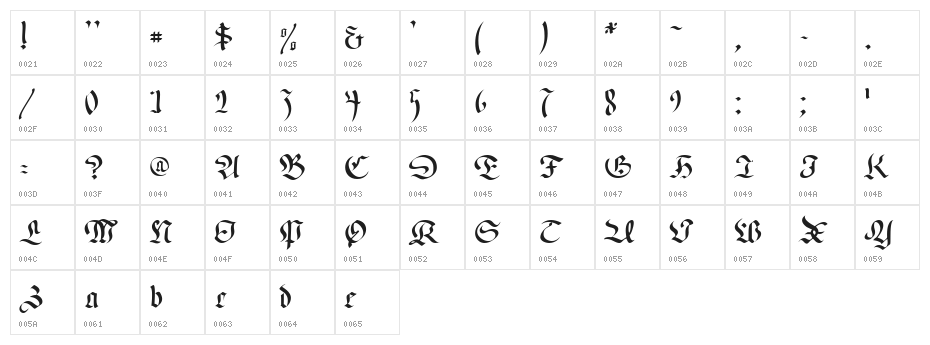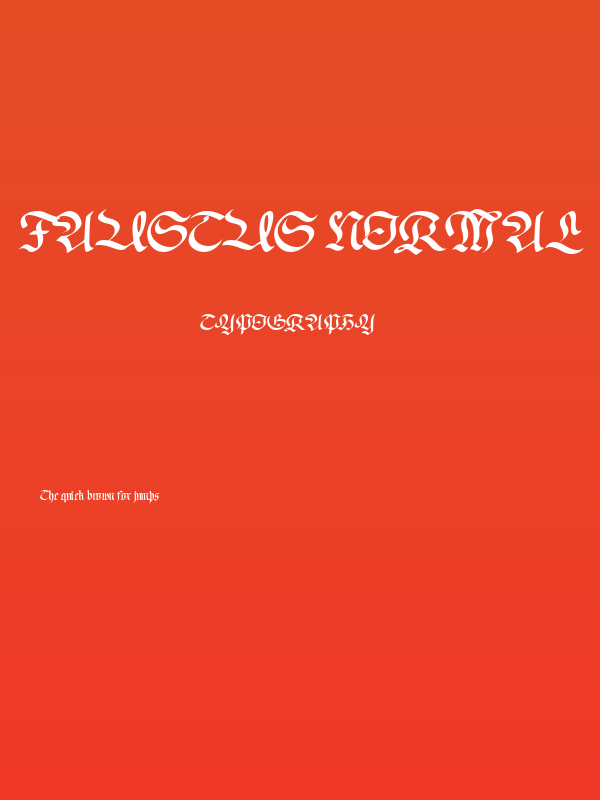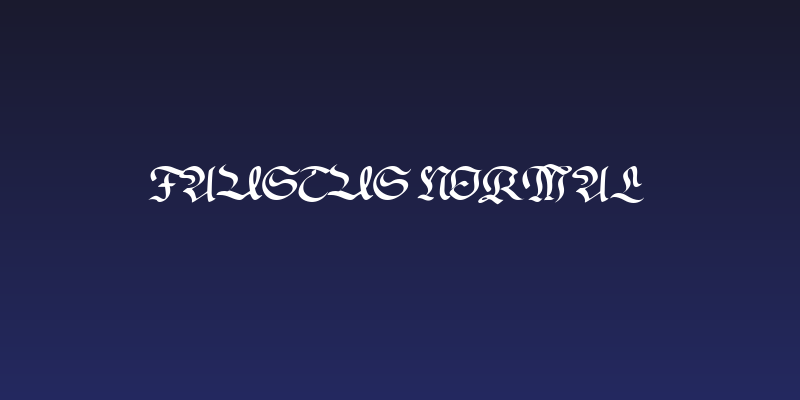
Faustus Normal Font
Faustus Normal Description
This font embodies a classic blackletter style, characterized by its intricate and ornate design. The letters are bold and dramatic, with sharp, angular lines and elaborate curves that give it a medieval, gothic appearance. The uppercase letters are particularly striking, with their elaborate flourishes and strong vertical emphasis. The lowercase letters maintain the same intricate detailing, ensuring consistency throughout the typeface. The numerals and special characters are equally ornate, fitting seamlessly with the overall aesthetic. This font is perfect for projects that require a historical or traditional touch, such as invitations, certificates, or branding for luxury products.
Overall StyleVintage
Use CaseLogos, Headlines, Decorative text
Proposed ProjectsIdeal for historical documents, gothic-themed designs, luxury branding, and decorative invitations.